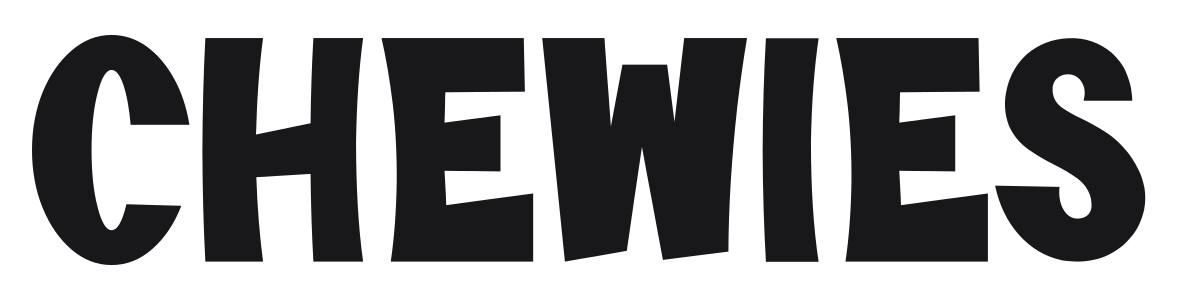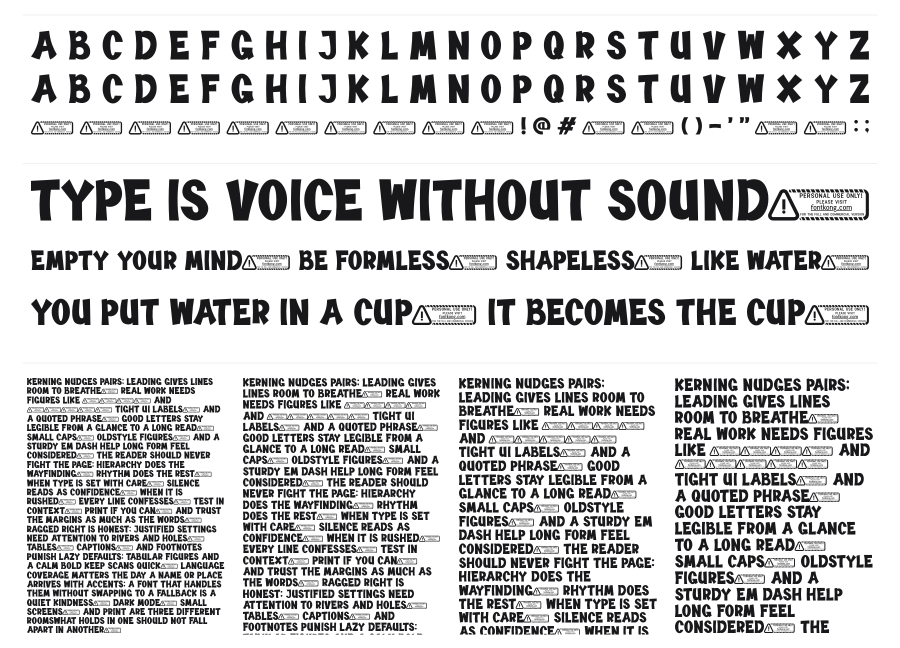
Chewies
Chewies is a bold, chunky kids display font with deliberately wobbly edges and irregular character shapes that give it a handmade cartoon energy. Each letter leans slightly and shakes with personality, making it feel like it jumped off a cereal box or a children's book cover. It carries real visual weight and works best at large sizes where the organic imperfections read clearly.